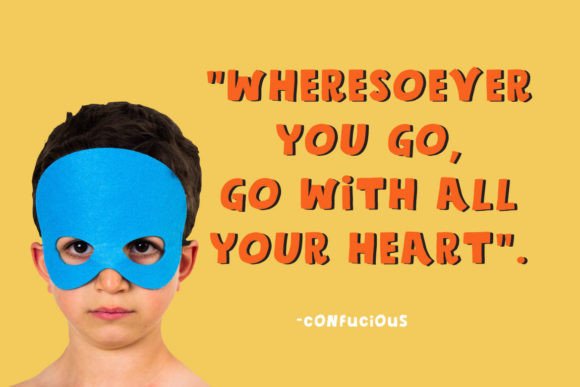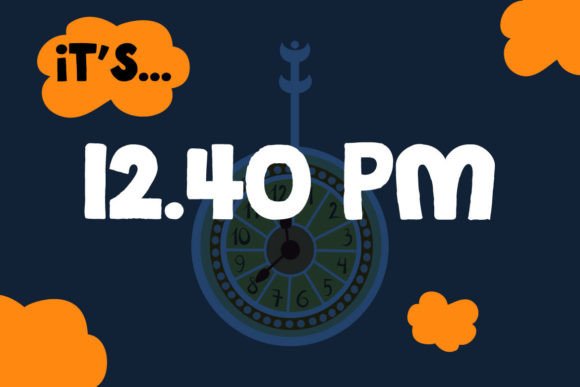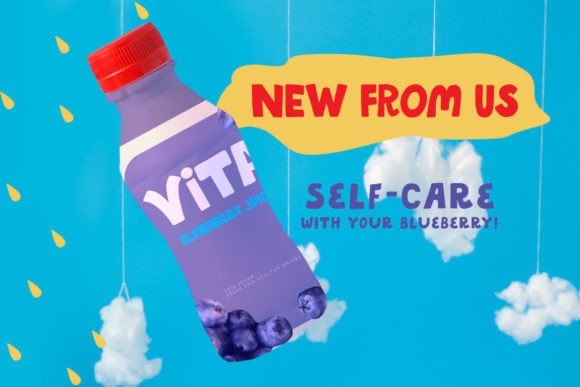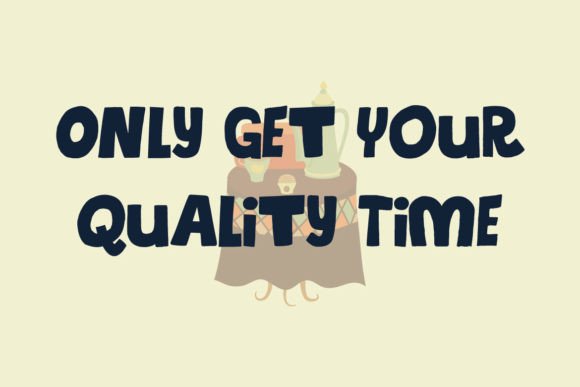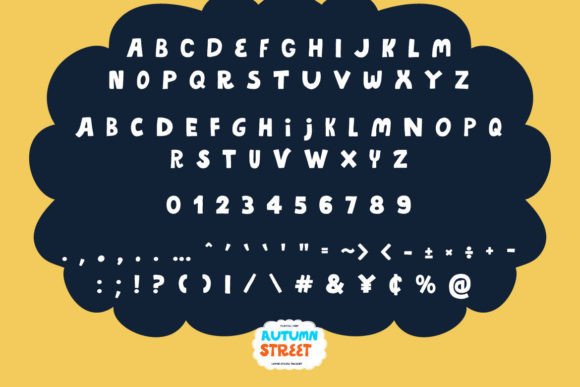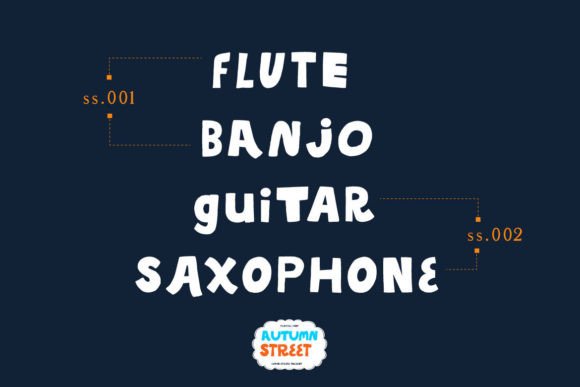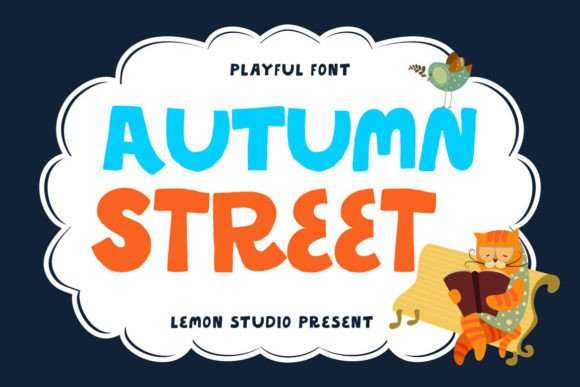
Introducing Autumn Street Font: The Ultimate Display Font for Friendly Designs
Are you tired of using the same old fonts for your designs? Look no further! Autumn Street Font is a fun and childish display font that’s perfect for adding a touch of friendliness to your crafts, digital designs, presentations, and greeting cards. In this article, we’ll dive into the world of Autumn Street Font and explore its features, benefits, and uses.
The Personality of Autumn Street Font
Autumn Street Font is a display font that exudes impeccable friendliness. Its playful and childish design makes it perfect for projects that require a personal touch. Whether you’re creating a birthday card, a craft project, or a digital design, this font is sure to bring a smile to the recipient’s face. The font’s friendly demeanor makes it an excellent choice for designers and crafters who want to create engaging and approachable designs.
Features of Autumn Street Font
So, what makes Autumn Street Font so special? Here are some of its key features:
• Fun and playful design: Autumn Street Font has a unique and playful design that’s sure to grab attention.
• Childish appeal: The font’s childish appeal makes it perfect for projects that require a youthful and energetic vibe.
• Display font: Autumn Street Font is a display font, making it perfect for headlines, titles, and other prominent text elements.
• Multipurpose: This font can be used for a wide range of projects, from crafts and digital designs to presentations and greeting cards.
Benefits of Using Autumn Street Font
So, why should you choose Autumn Street Font for your next project? Here are some benefits of using this amazing font:
• Adds a personal touch: Autumn Street Font adds a personal touch to your designs, making them more relatable and engaging.
• Increases friendliness: The font’s friendly design makes your designs more approachable and inviting.
• Versatile: Autumn Street Font can be used for a wide range of projects, making it a great addition to your font library.
• Easy to read: Despite its playful design, Autumn Street Font is easy to read, making it perfect for both digital and print designs.
Uses of Autumn Street Font
So, how can you use Autumn Street Font in your designs? Here are some ideas to get you started:
• Crafts: Use Autumn Street Font to add a personal touch to your craft projects, such as scrapbooking, card making, and DIY gifts.
• Digital designs: Add a friendly touch to your digital designs, such as social media graphics, blog posts, and email newsletters.
• Presentations: Use Autumn Street Font to make your presentations more engaging and approachable.
• Greeting cards: Create personalized greeting cards for special occasions, such as birthdays, holidays, and weddings.
Tips for Using Autumn Street Font
Here are some tips for getting the most out of Autumn Street Font:
• Use it sparingly: Autumn Street Font is a display font, so use it sparingly to add emphasis to your designs.
• Pair it with other fonts: Experiment with pairing Autumn Street Font with other fonts to create a unique and visually appealing design.
• Adjust the size and color: Adjust the size and color of Autumn Street Font to suit your design needs.